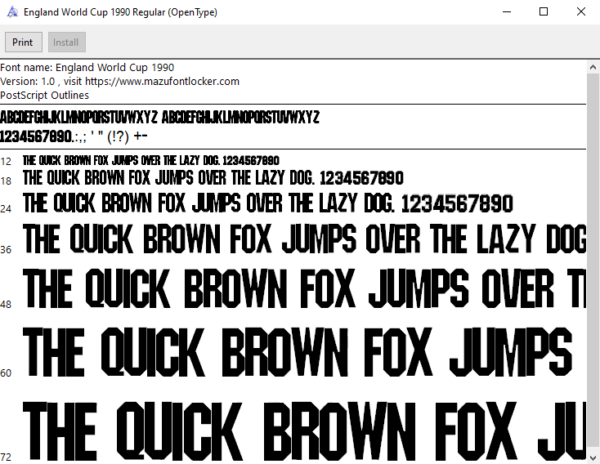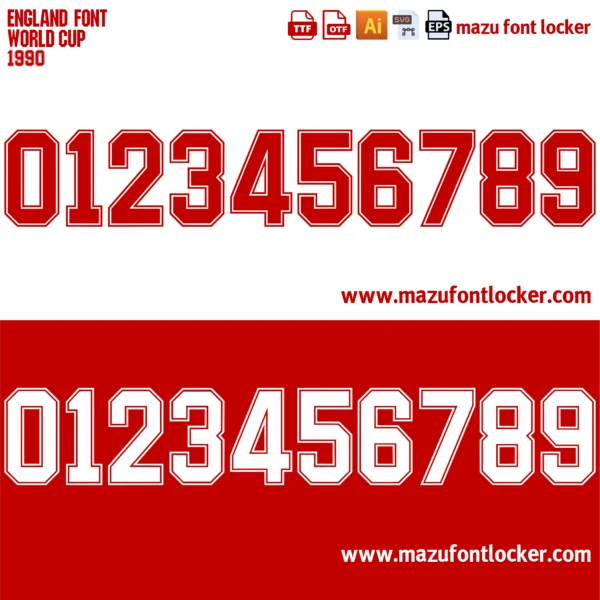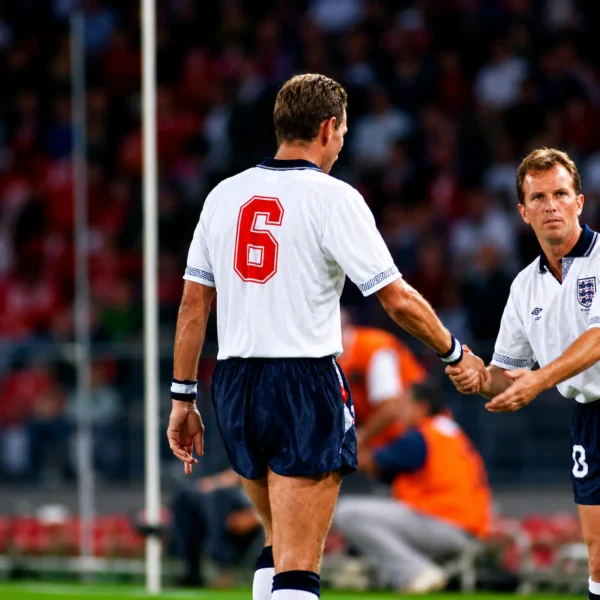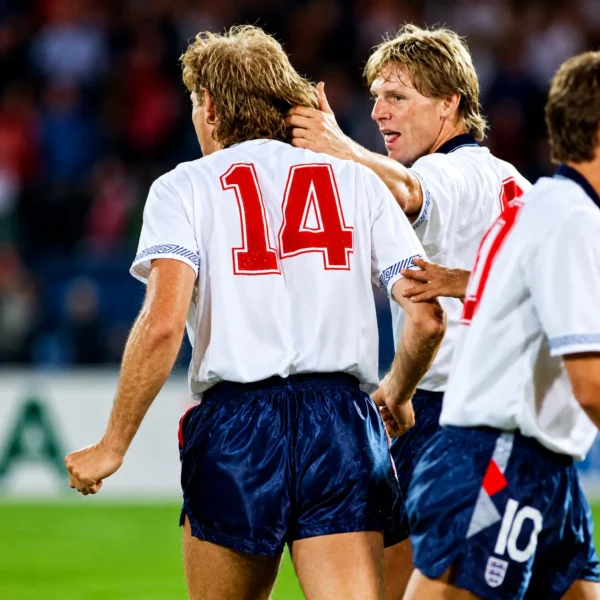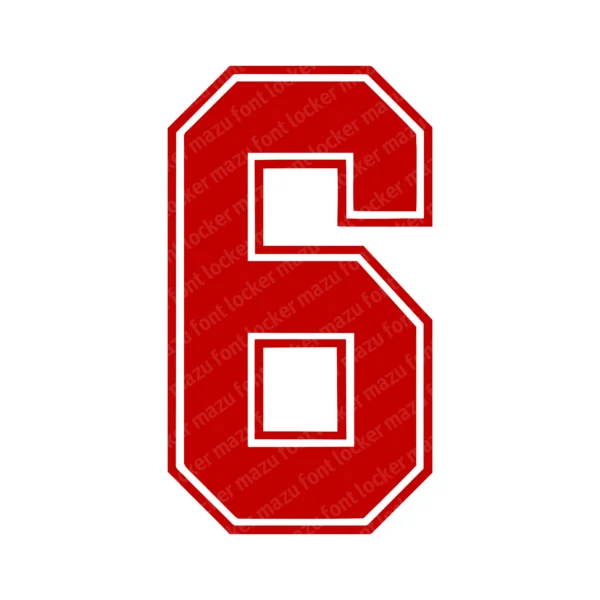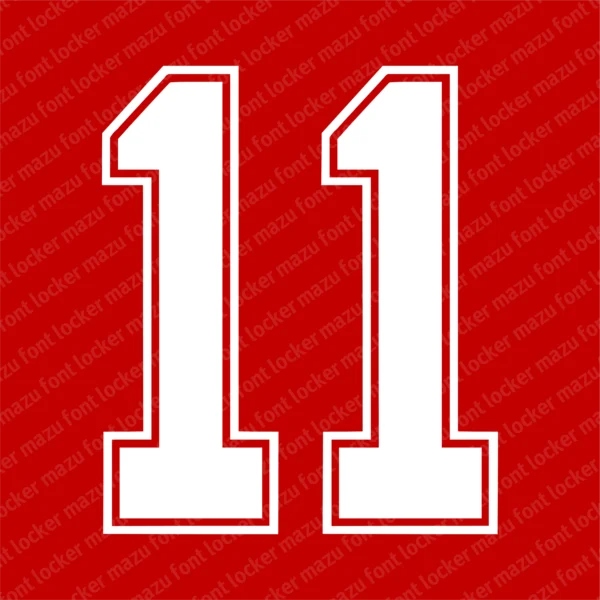
England World Cup 1990 Font Vector – Amazing Epic Three Lions Classic
Download the England World Cup 1990 Font Vector (AI, EPS, SVG, PDF, OTF, TTF) and unleash the iconic, bold, and explosive match typography from England’s legendary 1990 World Cup campaign. This font captures the classic White & Red lettering, reimagined with sharp retro power and authentic Three Lions pride.
Channeling the fearless English spirit with raw football grit, it delivers a powerful fusion of World Cup heritage and timeless British passion. Perfect for premium jersey mockups, football designs, and collector-worthy England 1990 art.
England World Cup 1990 Font Vector – Classic Three Lions Typeface
The England World Cup 1990 Font Vector is a premium typeface that faithfully recreates the iconic lettering from England’s legendary 1990 FIFA World Cup jersey. This vector font kit captures the bold, classic athletic style that defined one of the most memorable English national team kits in history.
Designed for football designers, graphic artists, and passionate England fans, the England World Cup 1990 Font Vector delivers authentic vintage aesthetics perfect for retro jersey mockups, fan merchandise, posters, social media content, and nostalgic football campaigns.
Why Choose England World Cup 1990 Font Vector
This font set is highly valued for its historical accuracy and premium quality. Every letter and number has been meticulously recreated to match the original typography used on England’s 1990 World Cup shirts. It perfectly blends classic football heritage with modern design usability.
The letterforms feature bold, athletic proportions with a slightly condensed and dynamic stance. The strong, clean strokes deliver powerful visual presence while maintaining excellent readability — ideal for both large squad numbers and detailed graphic applications.
The numerals showcase classic 90s football styling with sharp contours, balanced weight, and authentic athletic proportions, ensuring outstanding results across print and digital media.
• Full uppercase A–Z and numbers 0–9 in the official 1990 England style
• Multilingual Latin support with diacritics
• Create accurate England 1990 World Cup jersey replicas and mockups
• Design nostalgic retro posters, football campaigns, and fan content
• Produce authentic Three Lions merchandise with vintage flair
• Includes precise crest placement used under player numbers on the 1990 kit
England World Cup 1990 Classic Kit
The 1990 FIFA World Cup in Italy marked one of the most memorable campaigns in England football history. The Three Lions, managed by the legendary Bobby Robson, reached the semi-finals for the first time since their 1966 World Cup victory. England wore their iconic white jersey with red and blue accents, featuring the classic FA crest and timeless bold typography that has become synonymous with that golden era.
The England World Cup 1990 Font Vector is an independently developed typeface package. It has been carefully crafted to replicate the official lettering from England’s legendary 1990 World Cup jersey. Perfect for artistic projects, fan creations, and football design enthusiasts.